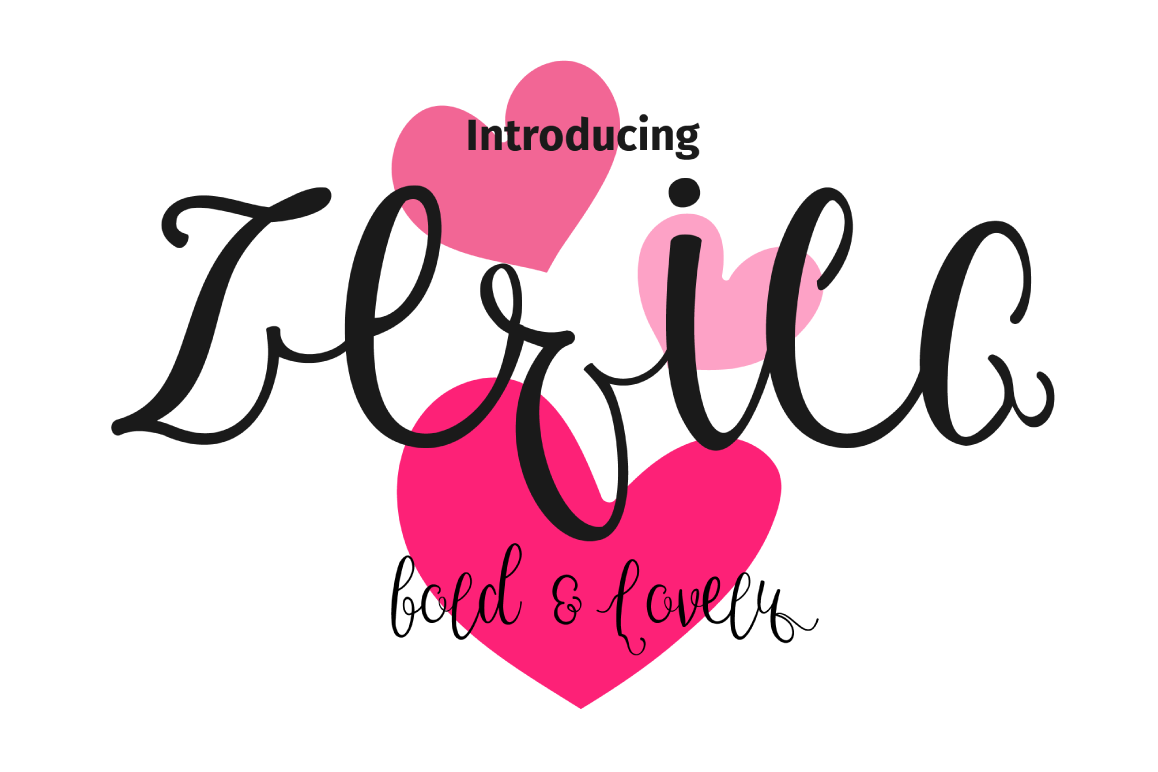
Zerica Script
A Bold calligraphy combined between cores glyph and swashs (initial & terminal). Zerica comes with some opentype features such:
• Standard ligature
• Discretionery ligatures
• Stylistic alternates: Uppercase & lowercase
• Contextual alternates: lowercase
• SS01: Uppercase & lowercase
• SS02: Uppercase & lowercase
• SS03: Uppercase & lowercase
• SS04: Uppercase & lowercase
• SS05: Uppercase & lowercase